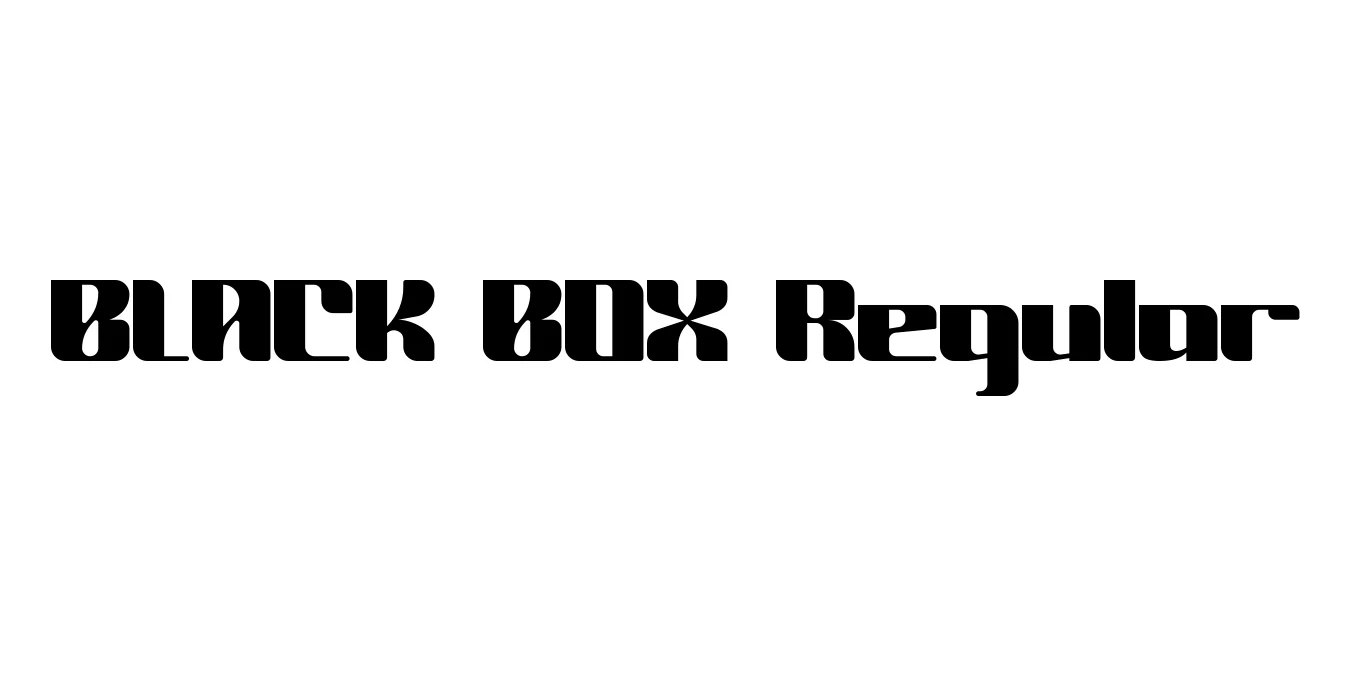
BLACK BOX Regular
Designed by James Fordyce
| Category | Display / Techno |
| Designer | James Fordyce |
Black Box Regular is a bold, geometric display typeface characterized by its thick, monolithic strokes and mechanical precision. Designed by James Fordyce, it embodies a futuristic and industrial aesthetic that commands attention. The letterforms are built on a solid grid, featuring square terminals and minimal negative space, which gives the font a sense of weight and architectural stability.
The typeface is highly effective for projects requiring a sense of power, technology, or modernism. Its unique construction allows it to stand out in high-resolution digital environments as well as in large-format print applications. Whether used for sci-fi themes or corporate branding in the tech sector, Black Box Regular provides a distinct visual identity that is both readable and stylistically aggressive.
BLACK BOX Regular Best Uses
Ideal for creating strong, impactful logos and corporate identity systems.
Perfect for large-scale titles in magazines, posters, and web banners.
Excellent for sci-fi and technology-themed video game UI and marketing.
Great for high-contrast typography in social media graphics and digital posters.